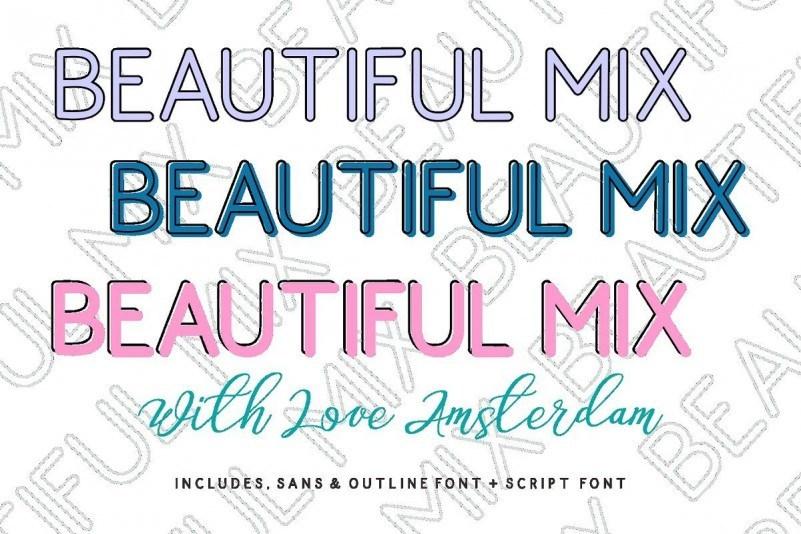
Love Amsterdam Sans Font
Love Amsterdam Sans Font is a classic sans serif with a rustic finish, entirely crafted by hand – that’s how “Love Amsterdam Font” comes along, bringing handmade elegance to your logo design, branding, wedding invitation and design project.
Love Amsterdam always looks freshly custom-made and was created to look like those individual logotypes that you can see everywhere. Add that touch to your artwork as well, simply by using this rustic little font!